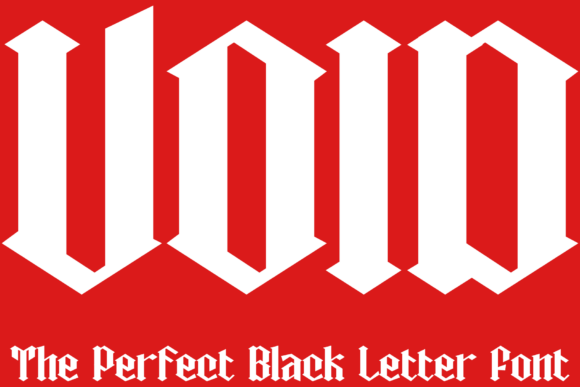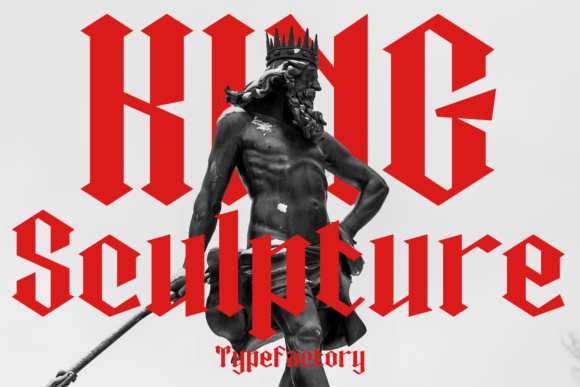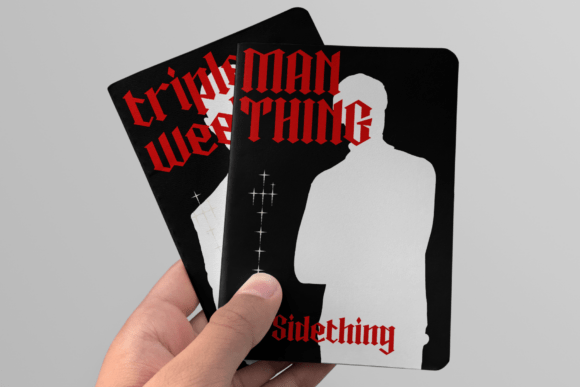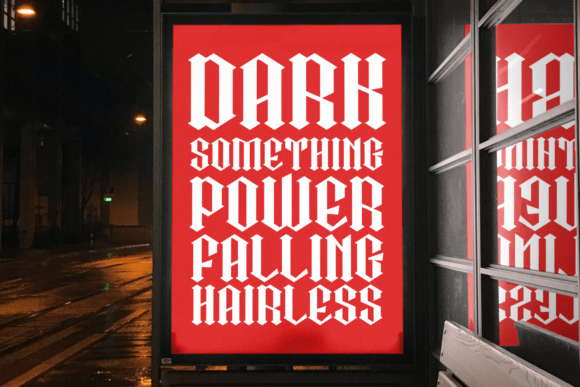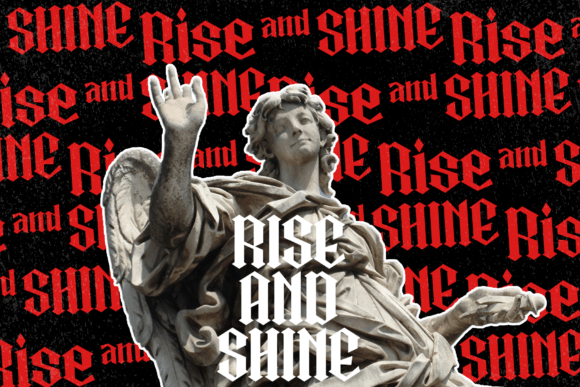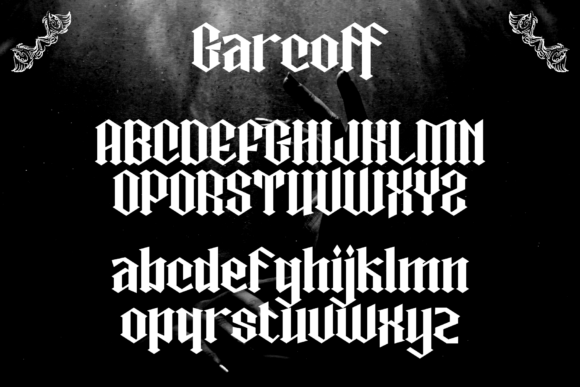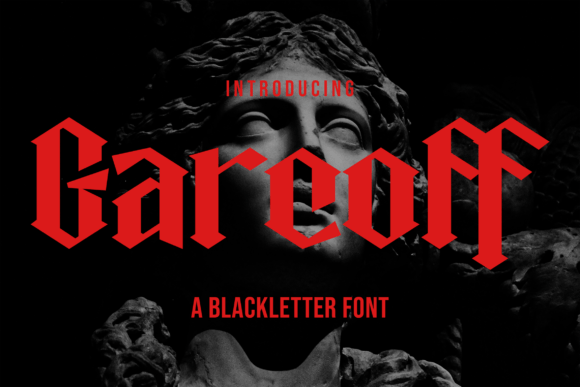
Introducing Garcoff Font: The Ultimate Gothic Blackletter Typeface
Are you a designer or crafter looking for a font that exudes drama, power, and a touch of medieval flair? Look no further than Garcoff, a stunning gothic blackletter font that is sure to elevate your designs to the next level. With its sharp angular strokes, tall vertical forms, and bold structure, Garcoff is the perfect choice for creating striking visuals that demand attention.
What is Garcoff Font?
Garcoff is a gothic blackletter font that draws inspiration from the dramatic and ornate lettering of the medieval era. Its sharp, angular strokes and tall, vertical forms evoke a sense of power and grandeur, making it an ideal choice for designs that require a bold and authoritative look. The font’s strong contrast and pointed details add to its dramatic effect, creating a sense of tension and energy that is sure to captivate your audience.
What is Garcoff Font Used For?
Garcoff font is incredibly versatile and can be used for a wide range of design applications. Its bold and dramatic structure makes it perfect for:
- Music posters and album covers: Add a touch of medieval drama to your music designs with Garcoff’s bold and striking lettering.
- Tattoo designs: The font’s sharp, angular strokes and bold structure make it an ideal choice for creating striking and eye-catching tattoo designs.
- Apparel graphics: Elevate your apparel designs with Garcoff’s bold and dramatic lettering, perfect for creating eye-catching logos and graphics.
- Dark branding: Create a bold and authoritative brand identity with Garcoff’s dramatic and gothic-inspired lettering.
- Editorial headlines: Add a touch of drama and flair to your editorial designs with Garcoff’s bold and striking lettering.
- Merchandise: Create striking and eye-catching merchandise designs with Garcoff’s bold and dramatic lettering.
- Signage: The font’s bold structure and strong contrast make it perfect for creating eye-catching signage that demands attention.
- Visual identities: Create a bold and authoritative visual identity for your brand with Garcoff’s dramatic and gothic-inspired lettering.
Why Choose Garcoff Font?
So why choose Garcoff font for your design projects? Here are just a few reasons:
- Unique and distinctive: Garcoff’s bold and dramatic structure sets it apart from other fonts, making it a unique and distinctive choice for your designs.
- High-impact typography: The font’s strong contrast and pointed details create a sense of tension and energy, making it perfect for creating high-impact typography that demands attention.
- Versatile: Garcoff font is incredibly versatile and can be used for a wide range of design applications, from music posters to editorial headlines.
- Easy to read: Despite its bold and dramatic structure, Garcoff font is surprisingly easy to read, making it perfect for creating striking and effective designs.
How to Use Garcoff Font?
Using Garcoff font is easy and straightforward. Here are a few tips to get you started:
- Use it for display typography: Garcoff font is perfect for display typography, short titles, logos, and impactful headline compositions.
- Experiment with different sizes: The font’s bold structure and strong contrast make it perfect for creating striking visuals at a range of different sizes.
- Pair it with other fonts: Garcoff font pairs perfectly with other fonts, making it easy to create striking and effective designs.
In conclusion, Garcoff font is a stunning gothic blackletter typeface that is sure to elevate your designs to the next level. With its sharp angular strokes, tall vertical forms, and bold structure, Garcoff is the perfect choice for creating striking visuals that demand attention. Whether you’re a designer or crafter, Garcoff font is a must-have addition to your font library.